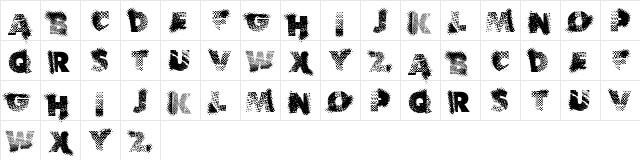
Tramix Regular
Design Context for Tramix
Tramix is a composed and adaptable typeface that performs quietly and consistently across a wide range of design contexts.
Pro Tip: Use Tramix in both headline and body roles to test its range before committing to a single application.